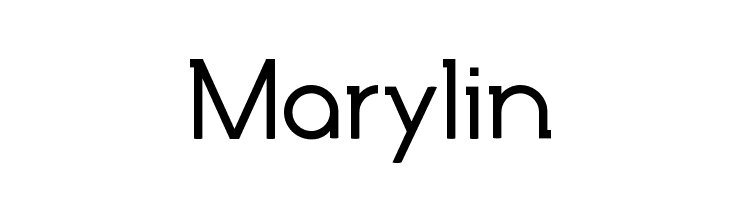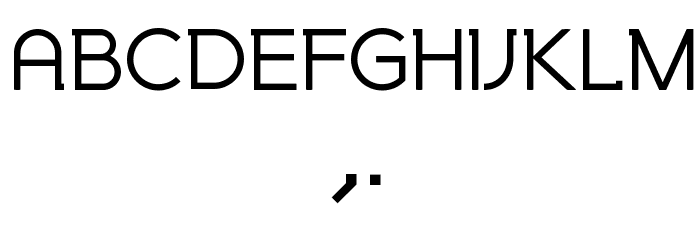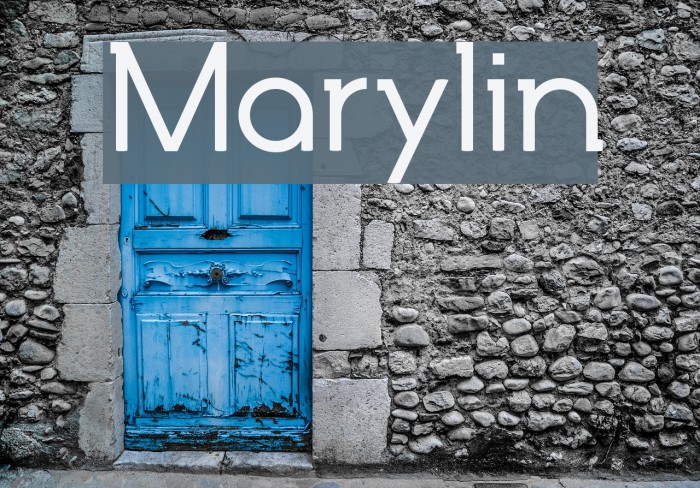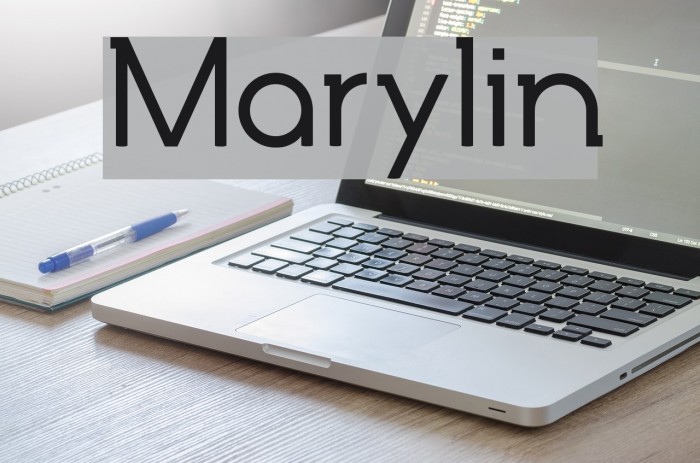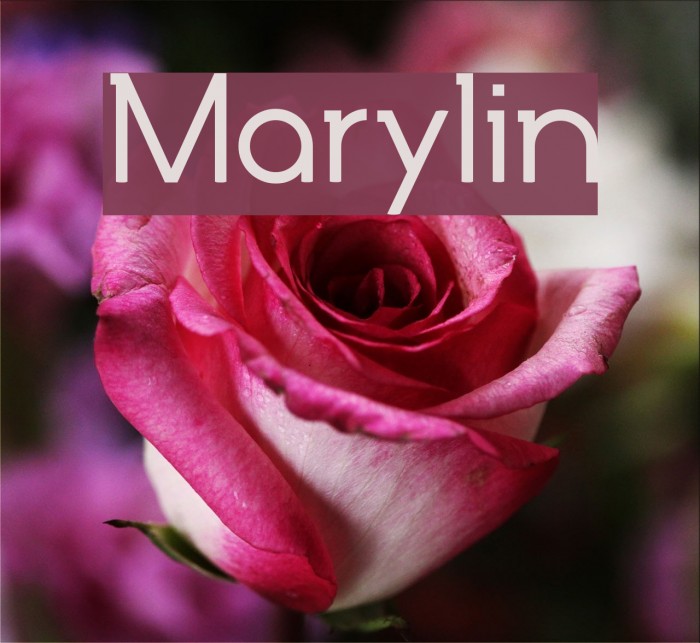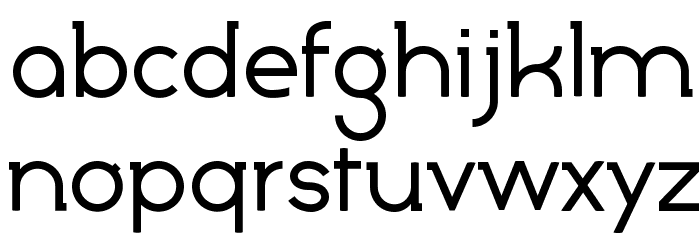
Marylin Font
Marylin Description
This font features a clean and modern sans-serif design with a geometric structure. The characters are uniform in width, providing a balanced and harmonious appearance. The uppercase letters are bold and prominent, while the lowercase letters maintain a consistent style with rounded edges and smooth curves. The numbers and special characters are designed to match the overall aesthetic, ensuring readability and visual appeal. The font's simplicity and clarity make it suitable for a wide range of applications, from digital interfaces to print media.
A modern, geometric sans-serif font with clean lines and balanced proportions from Uncategorized fonts.
- Proposed Projects: Ideal for branding, web design, advertising, and editorial layouts.